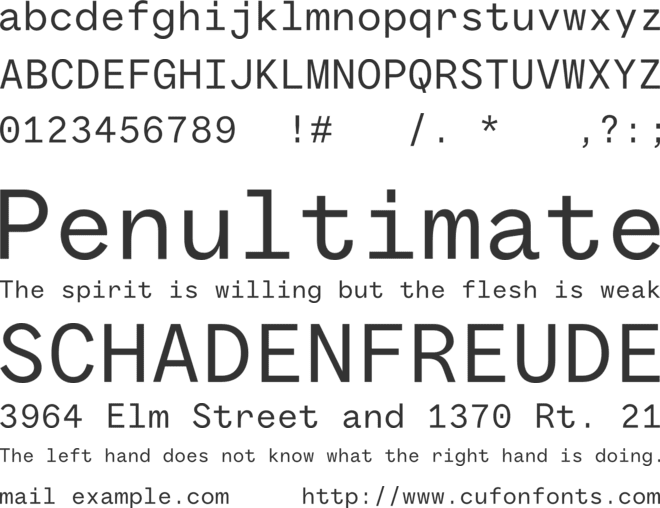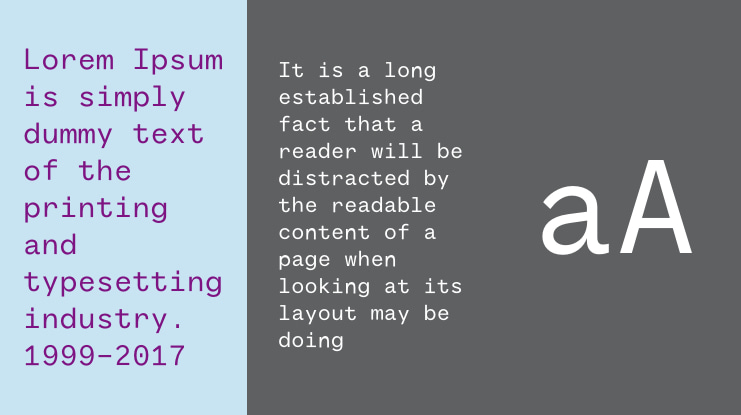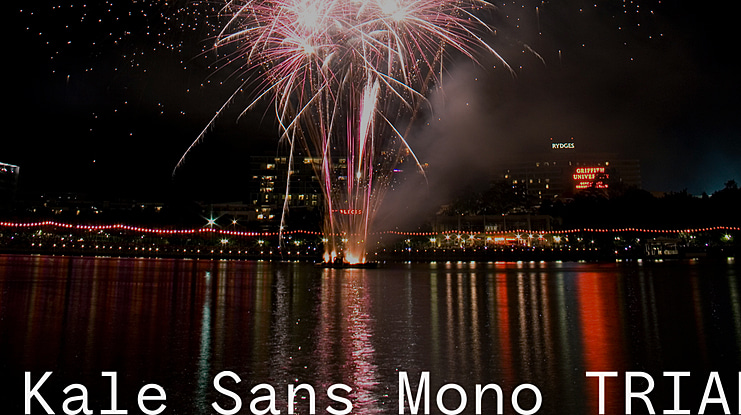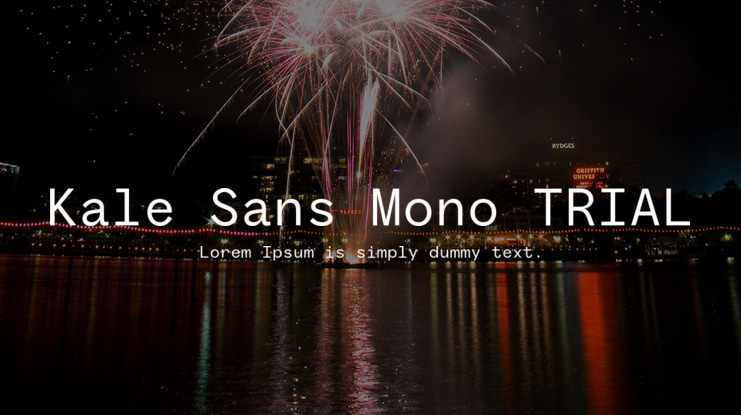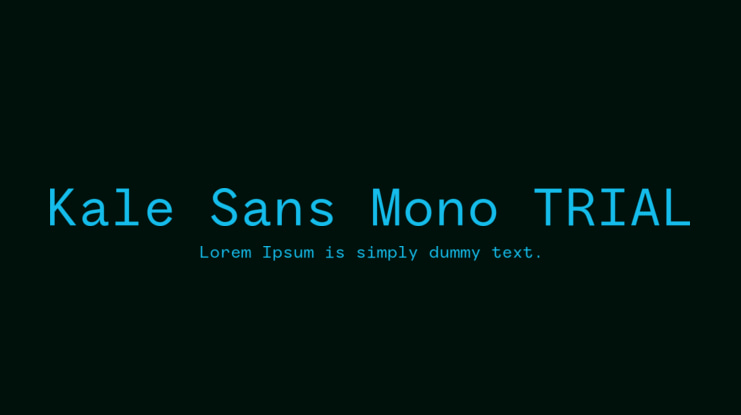
Kale Sans Mono TRIAL Font
This is a typeface with a geometric and modern design with a corporate purpose. Made from font designer named Boulevard LAB. Kale Mono is a friendship between organic shapes and rigid mechanics, bouncing off each other to create a harmonious balance in an unbalanced world.